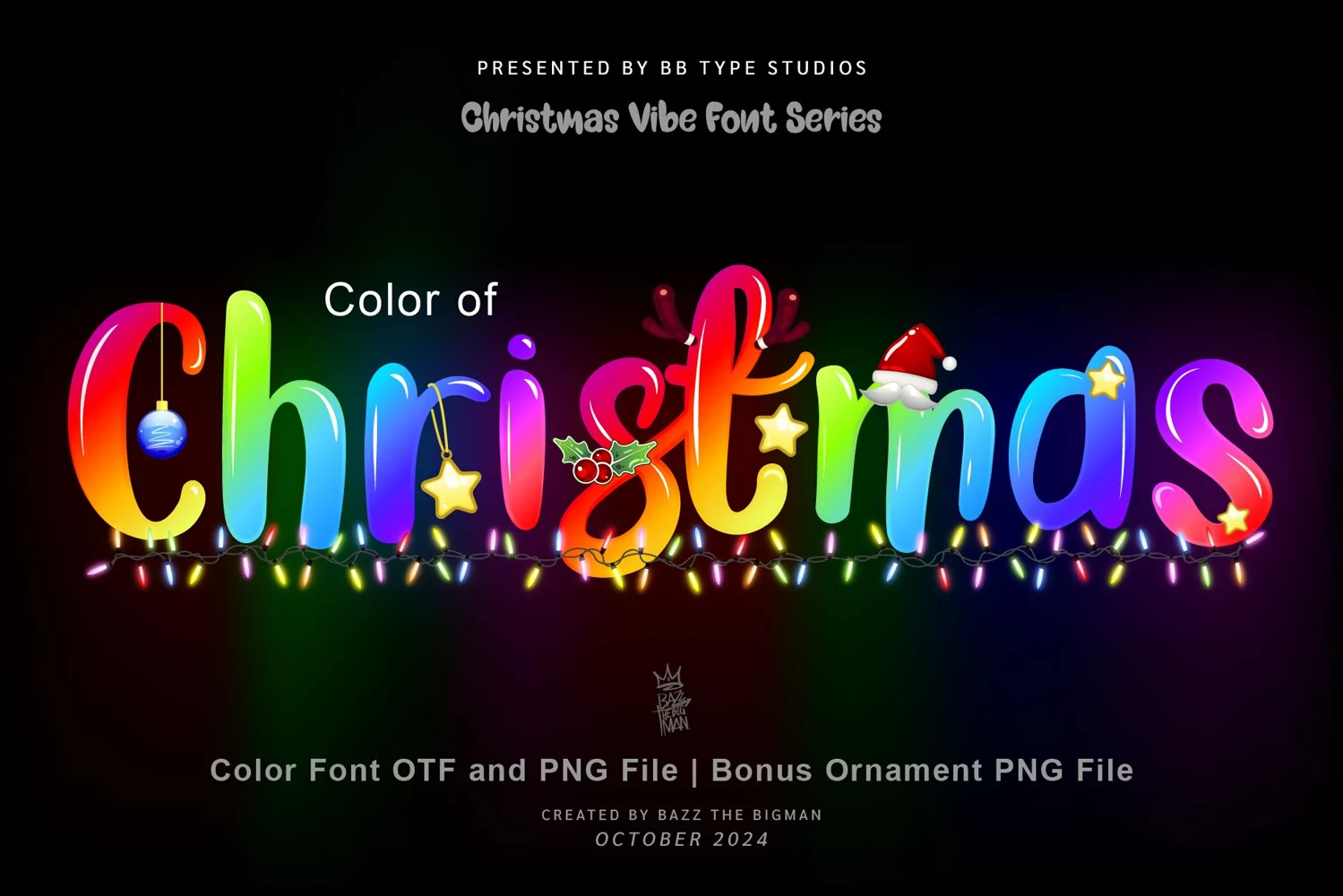
Color of Christmas
Step into the holiday spirit with 'Color of Christmas', a charming and vibrant font. Imbued with festivity and joy, this font breathes life into all your Christmas-inspired creations, transforming every t-shirt, craft, and card into a captivating masterpiece. Witness your projects instantly come alive, all thanks to the enchanting allure of the 'Color of Christmas' font.